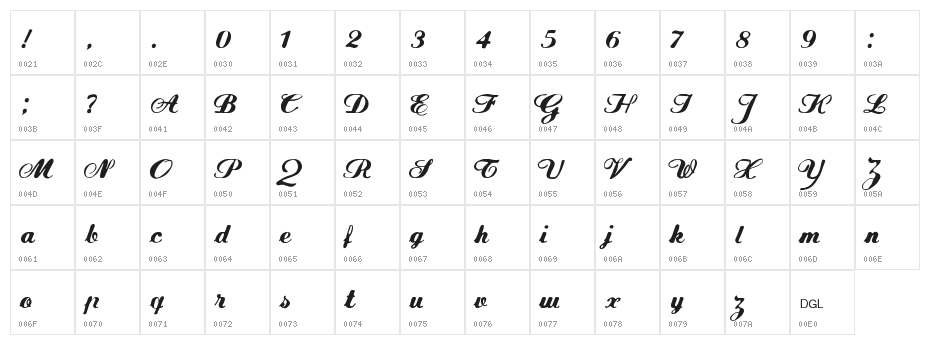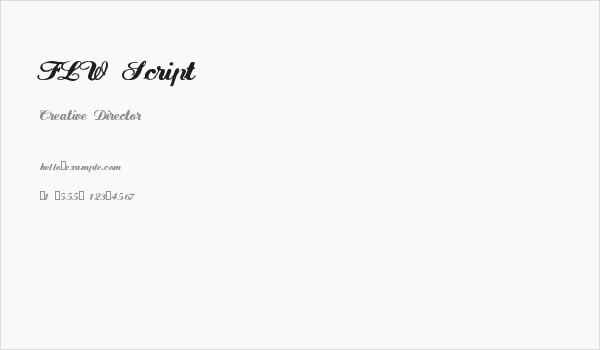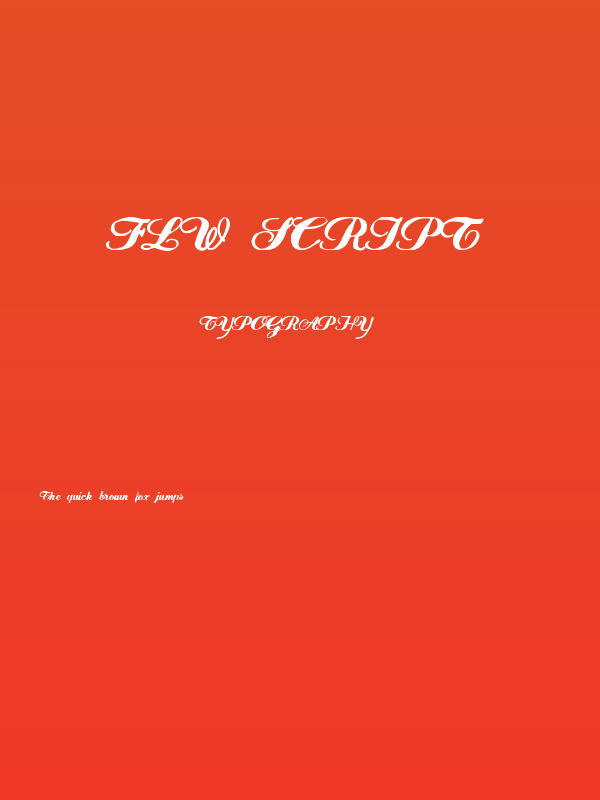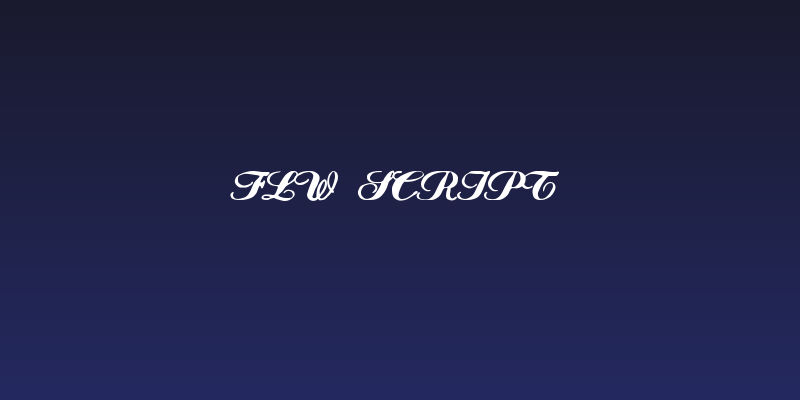
FLW Script Font
FLW Script Description
This font showcases a flowing and elegant script style, characterized by its cursive and connected letterforms. The uppercase letters exhibit a sophisticated flair with intricate loops and swashes, while the lowercase letters maintain a smooth and consistent flow. The numerals are designed to complement the script style, featuring rounded and fluid shapes. Special characters, such as punctuation marks, are integrated seamlessly into the overall design, enhancing its decorative appeal. The font's overall aesthetic is both classic and ornamental, making it suitable for projects that require a touch of elegance and sophistication.
| Overall Style | Classic |
| Use Case | Logos, Invitations, Decorative text |
| Proposed Projects | Ideal for wedding invitations, elegant branding, greeting cards, and decorative signage. |